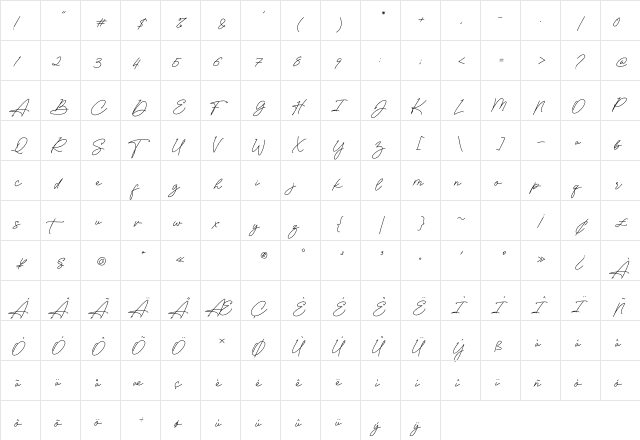
Lovely Love Regular
| Foundry | Ibey Design Studio |
| Designer | Ikrar Bey Khubaib |
Design Context for Lovely Love Typeface
Lovely Love is a composed and adaptable typeface that performs quietly and consistently across a wide range of design contexts.